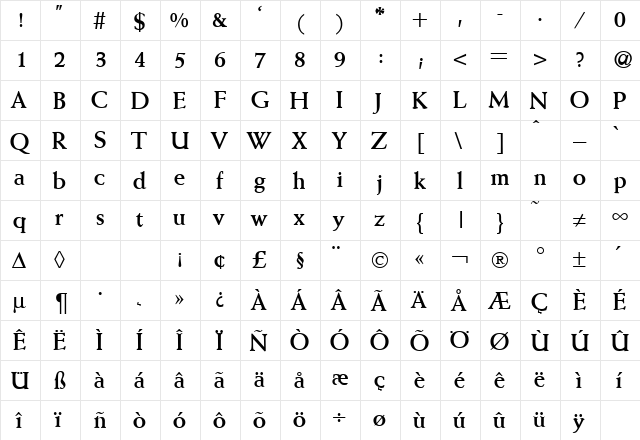
WaizeMedium Regular
Design Context for WaizeMedium Typeface
WaizeMedium is a composed and adaptable typeface that performs quietly and consistently across a wide range of design contexts.